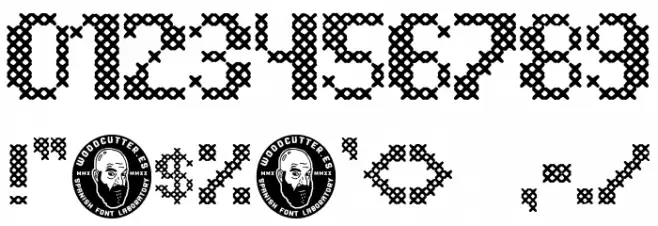
Grandma Rules! Font
Grandma Rules! Description
This font features a unique cross-stitch pattern that mimics traditional embroidery styles. Each character is composed of a series of intersecting lines that create a textured, handcrafted appearance. The design is consistent across uppercase and lowercase letters, as well as numbers and special characters, maintaining a cohesive look. The intricate detailing gives it a decorative flair, making it stand out in any design project. Its distinct style evokes a sense of nostalgia and craftsmanship, perfect for projects that aim to convey warmth and tradition.
A decorative font with a cross-stitch embroidery style from Decorative fonts.
- Proposed Projects: Ideal for crafting projects, vintage-themed designs, greeting cards, and DIY projects.
- Overall Style: Vintage
- Use Case: Logos, Headlines, Decorative text